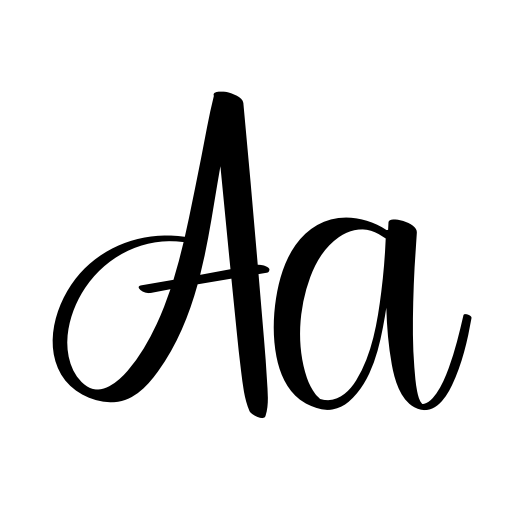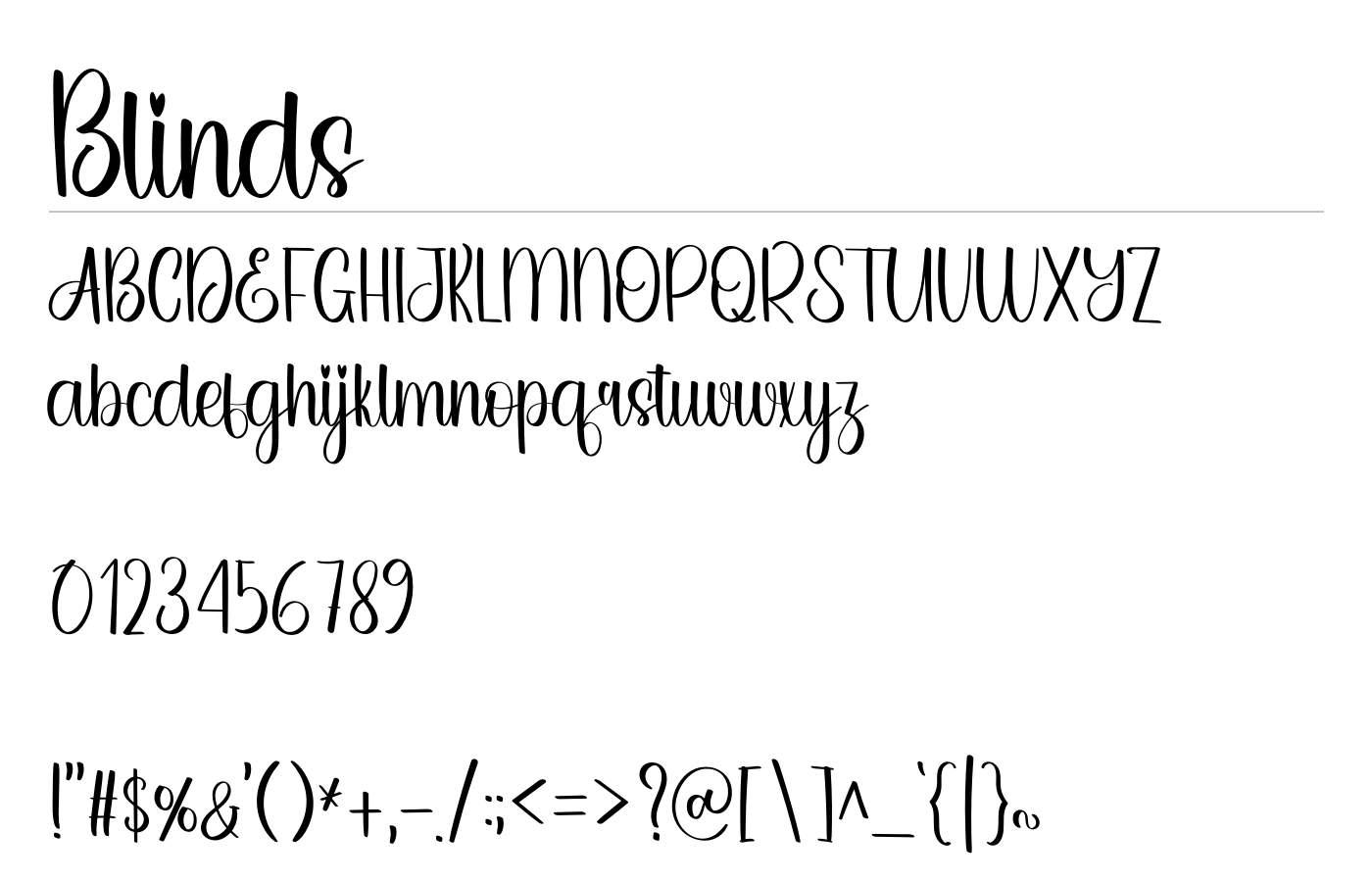
Blinds is a playful, hand-drawn script font with a lively and casual vibe. Its tall, slightly condensed letterforms feature smooth, flowing strokes with whimsical details like heart-shaped dots and curled terminals, making it perfect for creative, friendly, and informal designs. This font works well for invitations, branding, social media, and packaging where a charming and approachable personality is desired.
Blinds Font
About Blinds Font